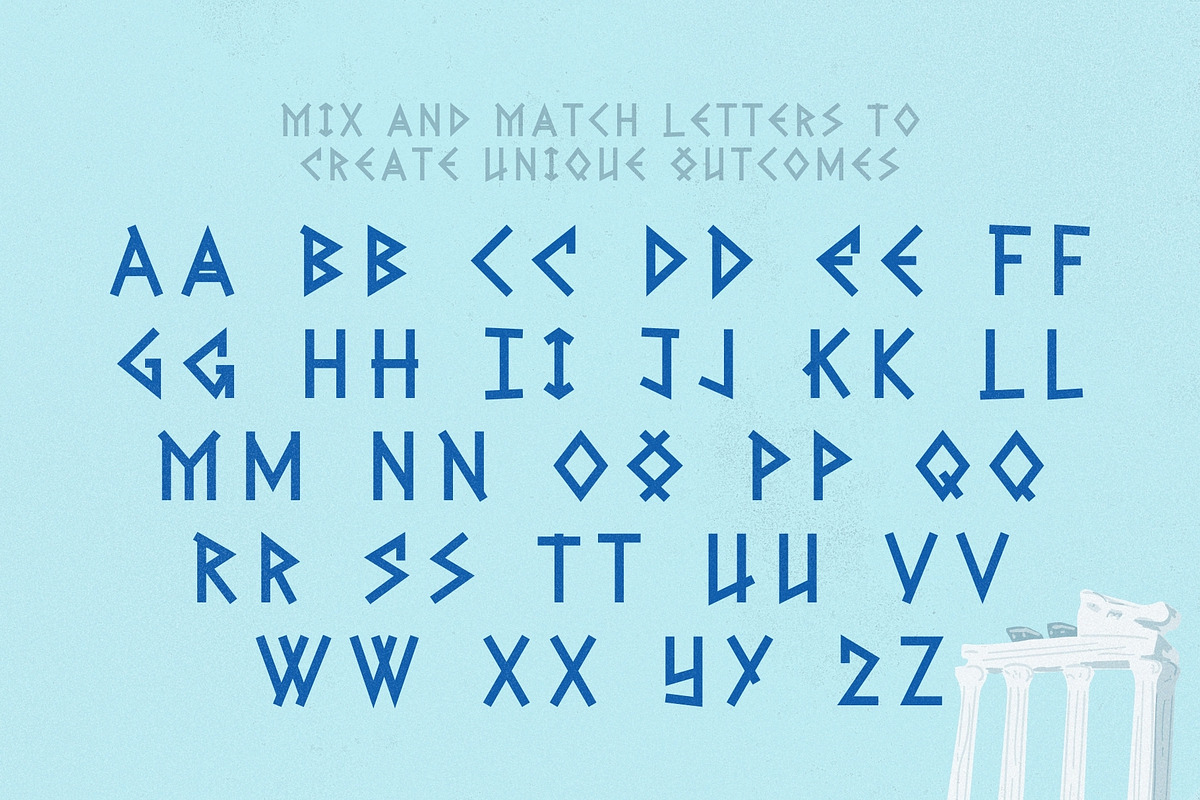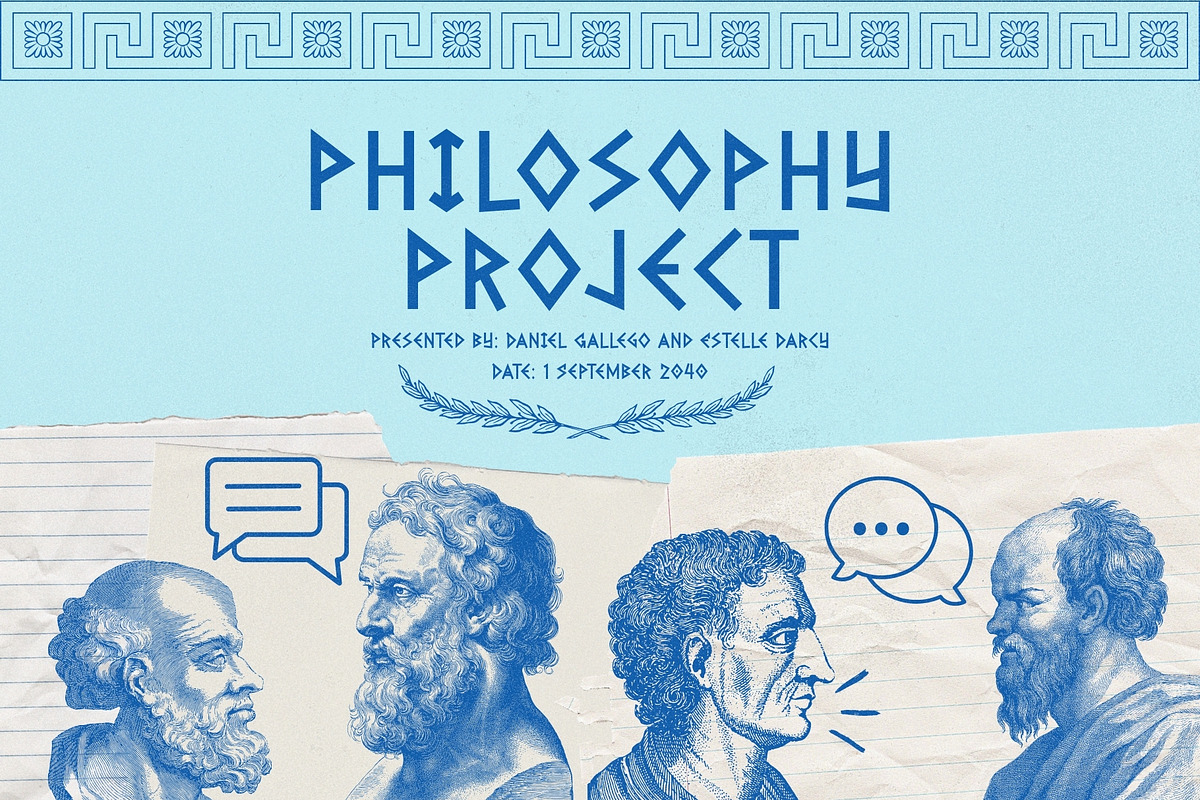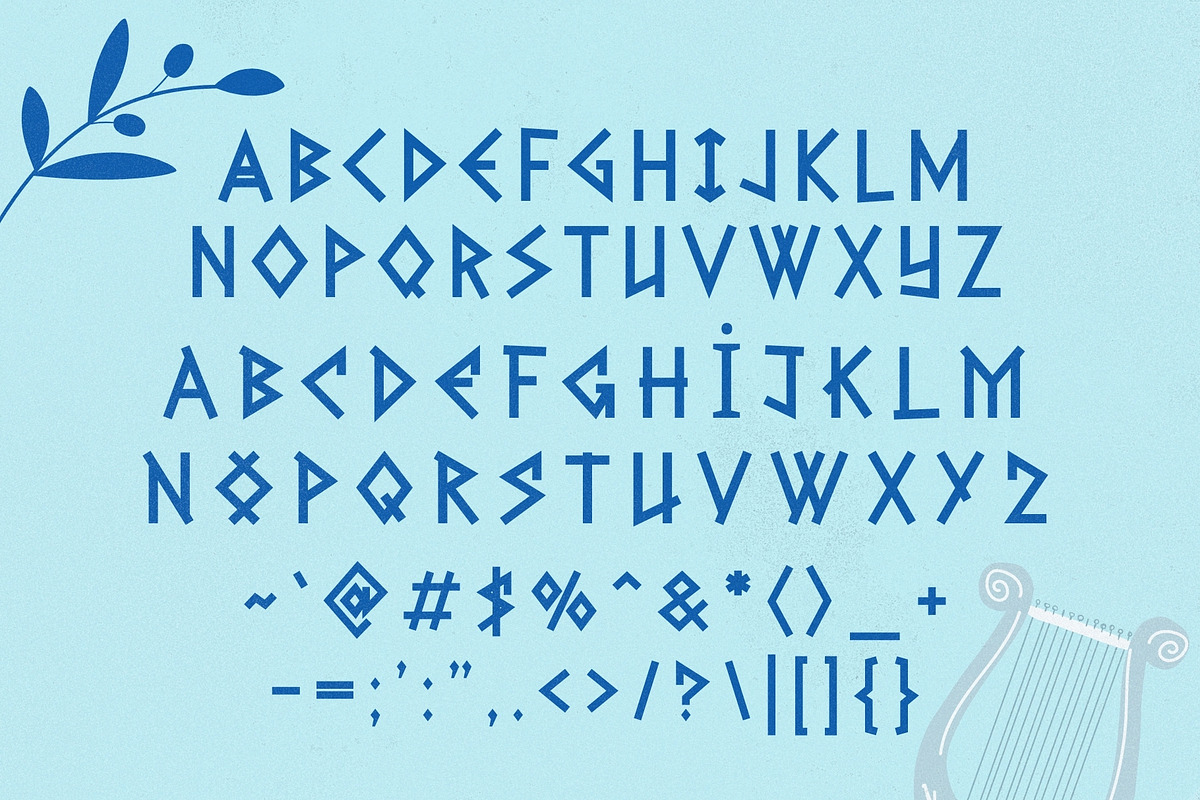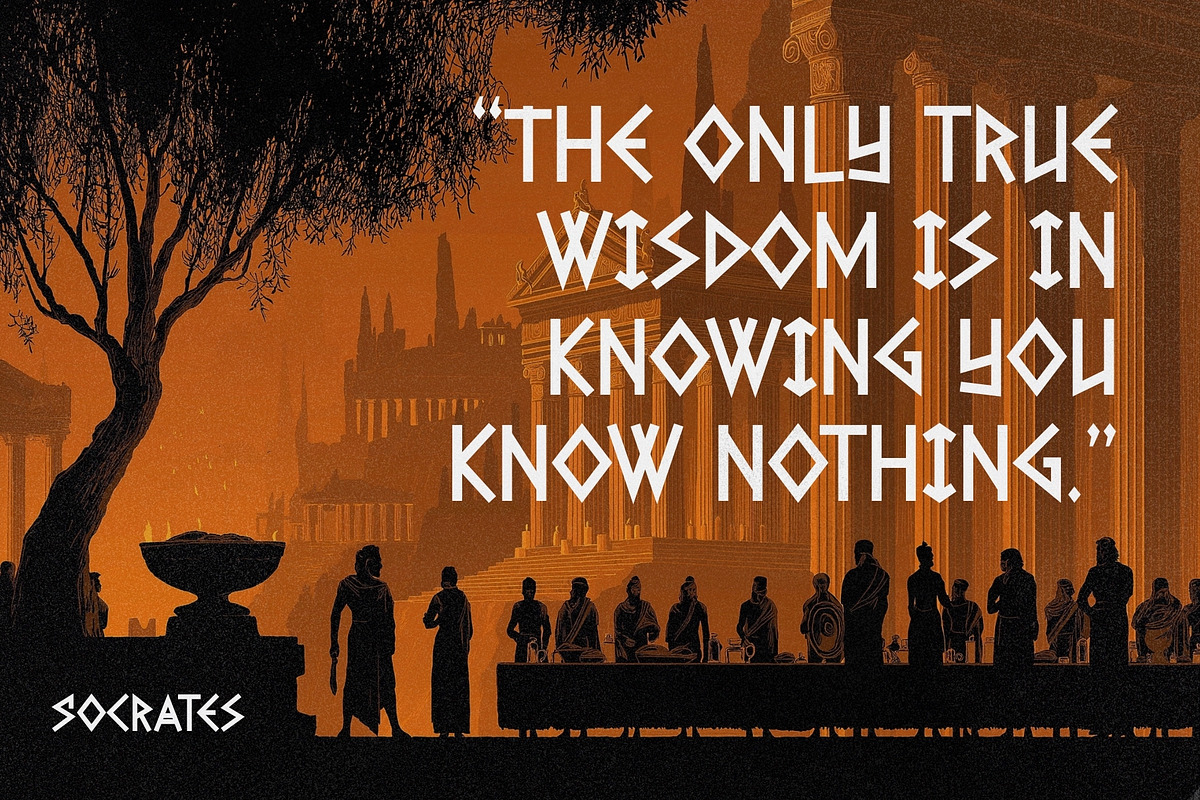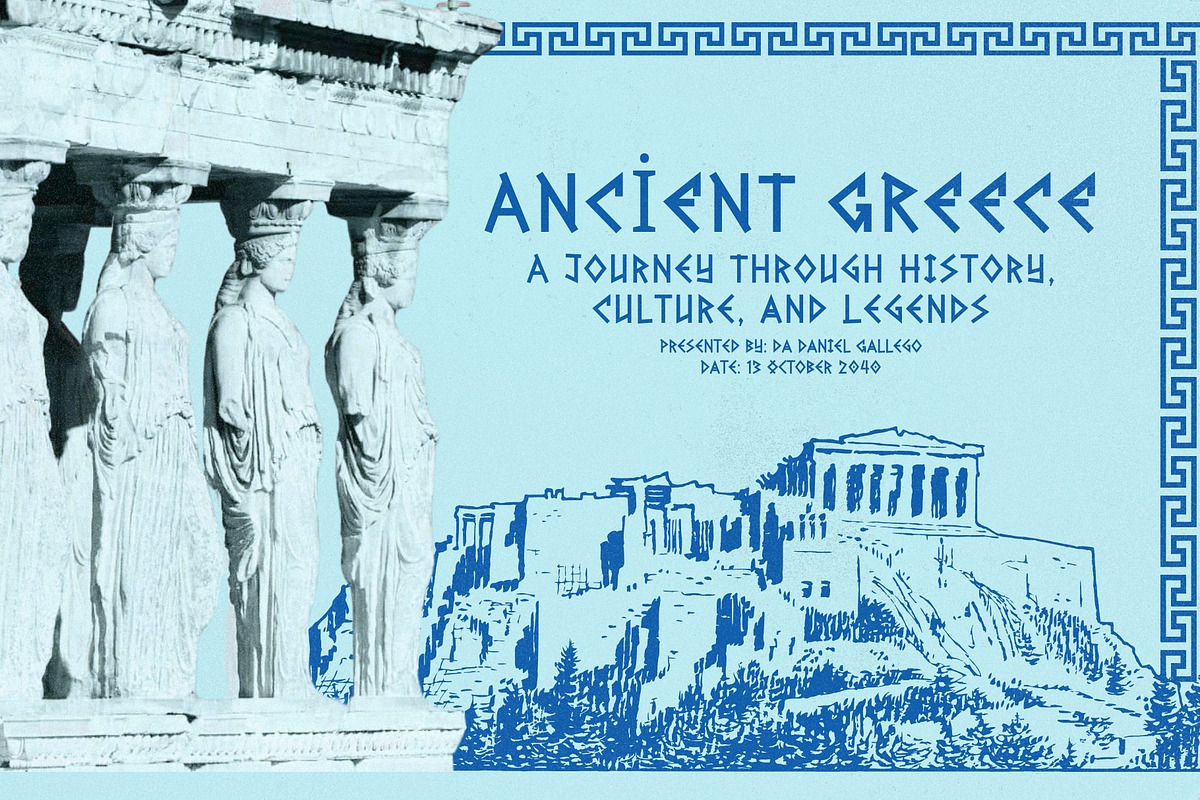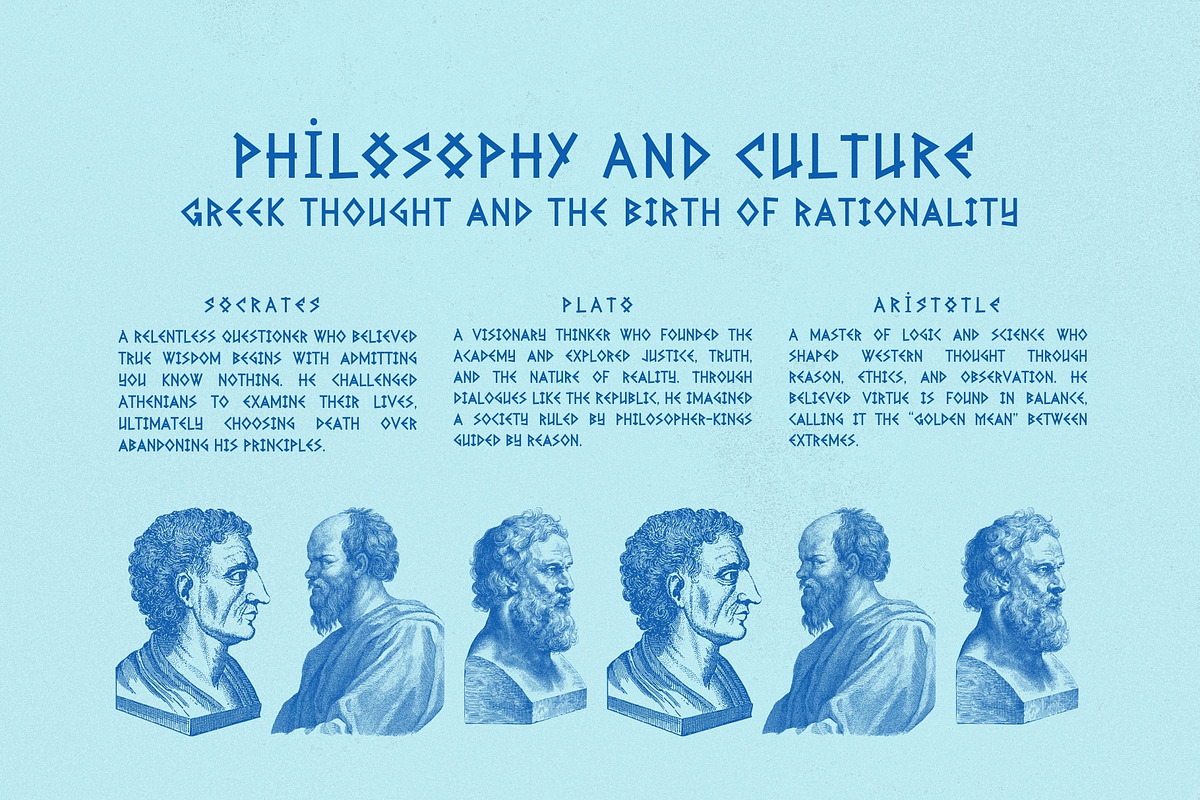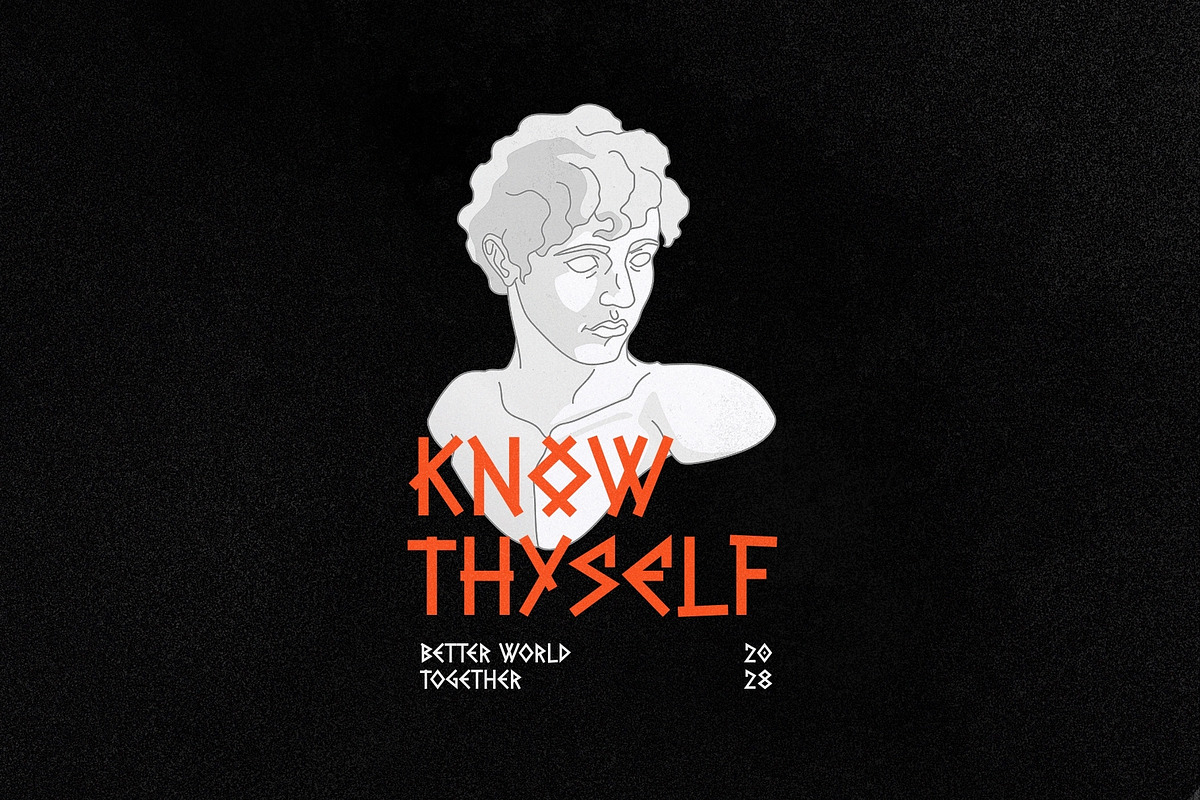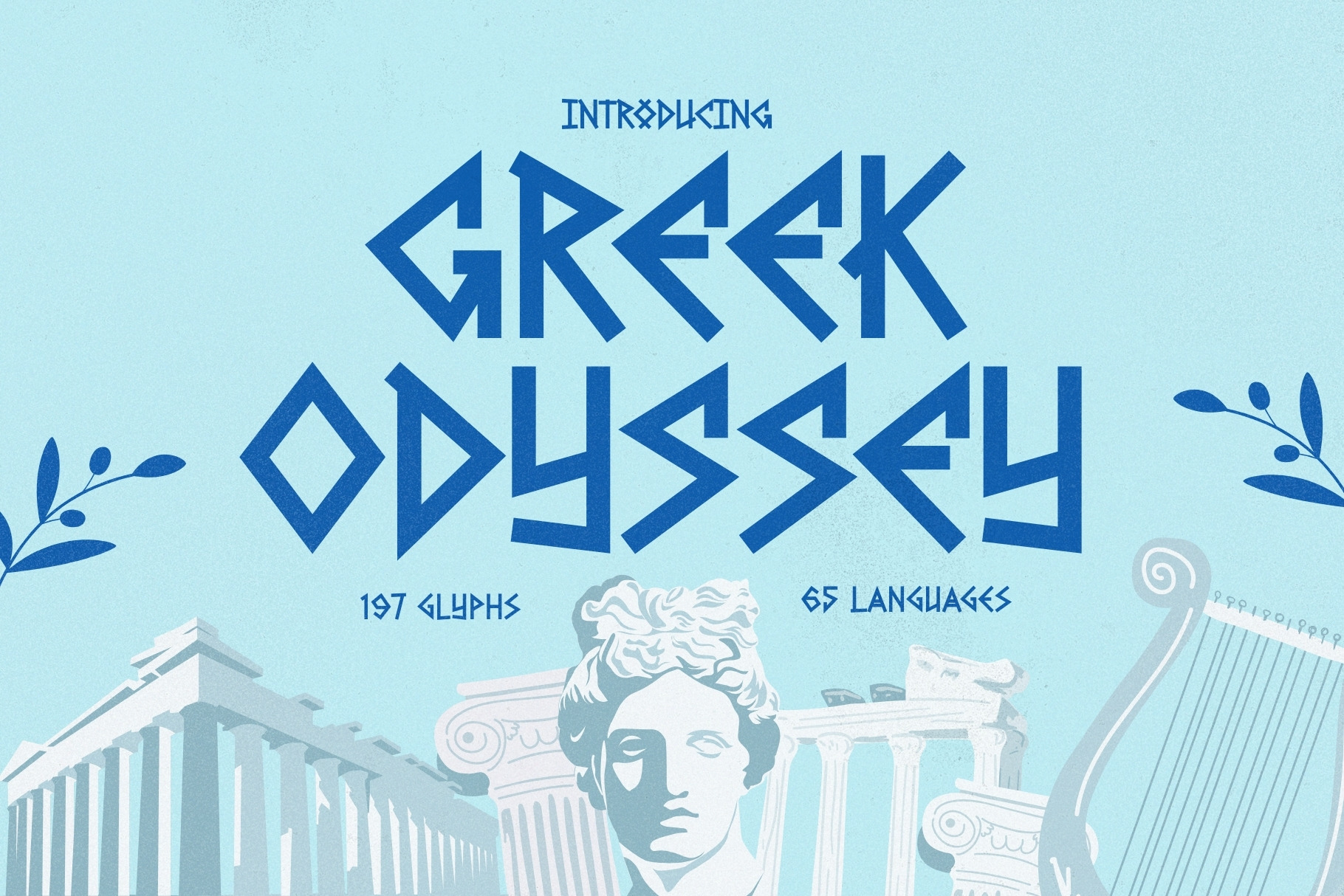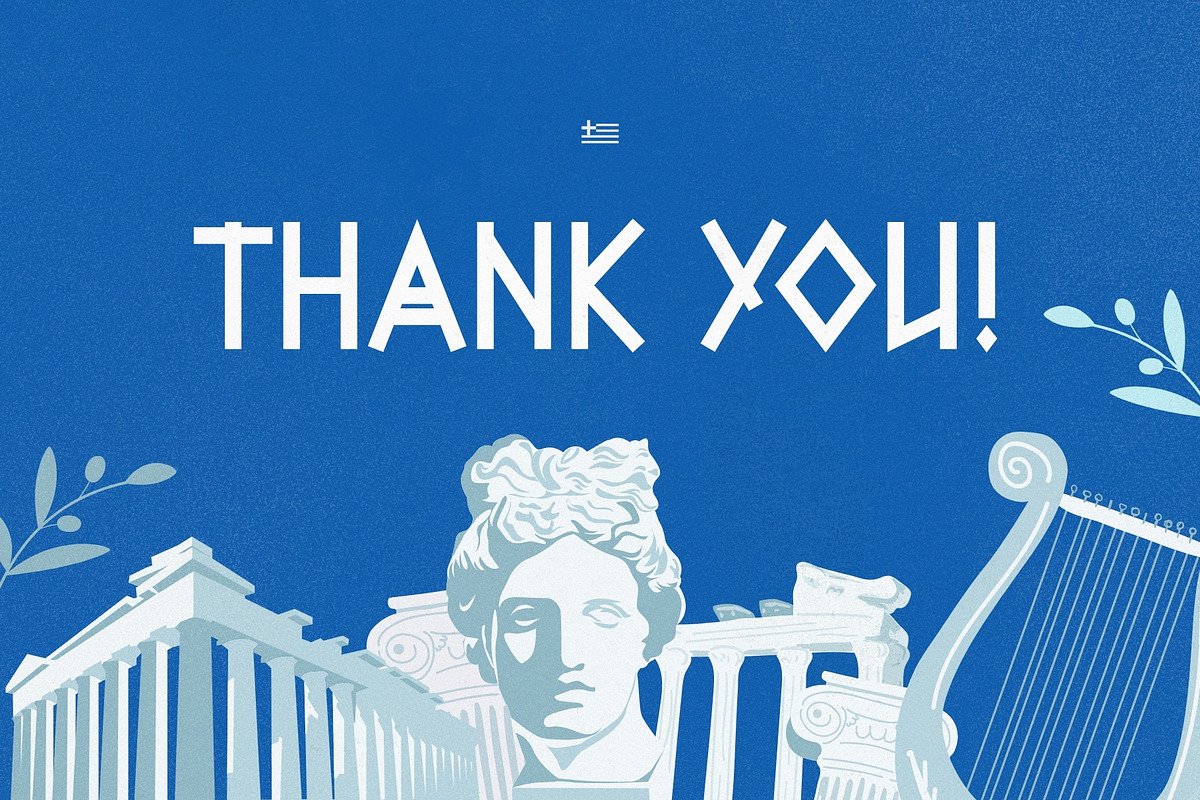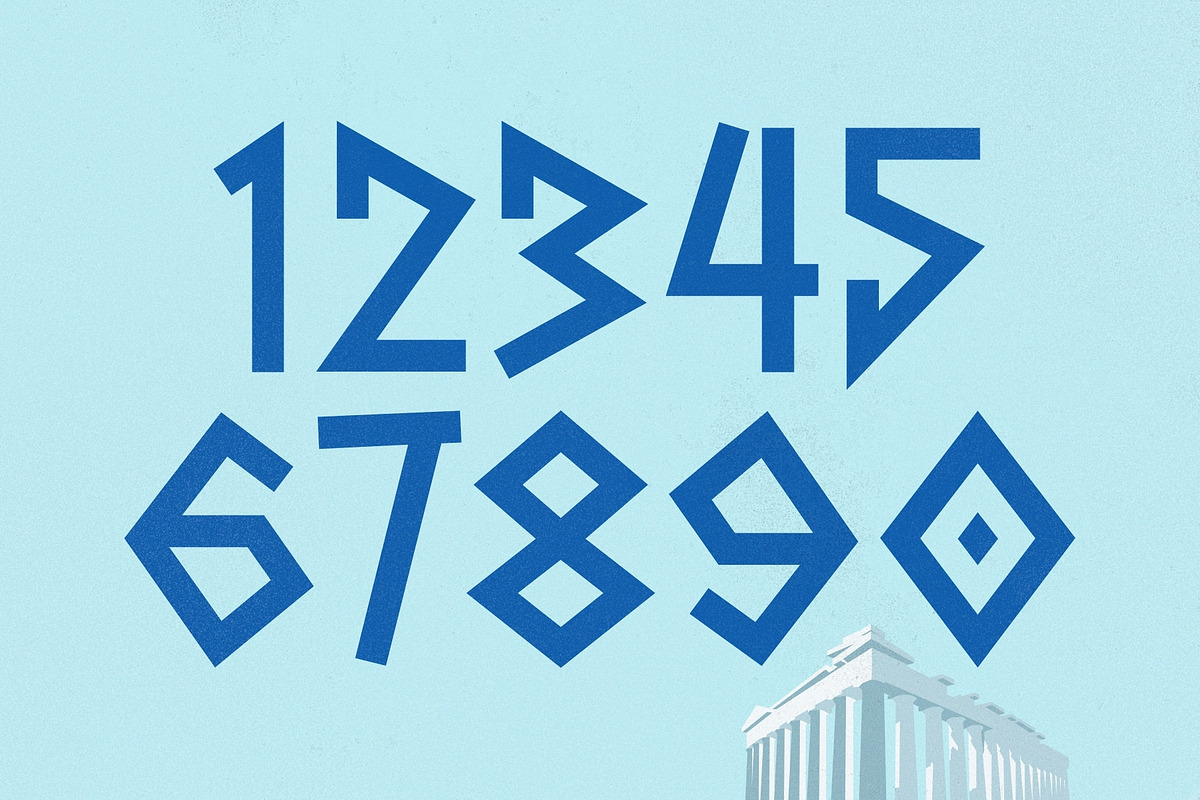
Greek Odyssey - Mythology Typeface
Step into the age of legends with Greek Odyssey, a timeless typeface inspired by the strength, beauty, and grandeur of ancient Greece. Crafted with classical proportions, sculpted serifs, and heroic presence, this font captures the spirit of marble temples, epic poetry, and mythic storytelling — while remaining refined enough for modern design.
Whether you're creating mythology-inspired branding, cinematic titles, historical documentaries, book covers, museum posters, apparel, or luxury packaging, Greek Odyssey delivers authority and elegance in every letterform. Each character feels carved from stone yet balanced with graceful curves, giving your designs both power and sophistication.
From epic logos to dramatic headlines, this typeface commands attention and evokes legacy.
Greek Odyssey — where history meets heroic design.